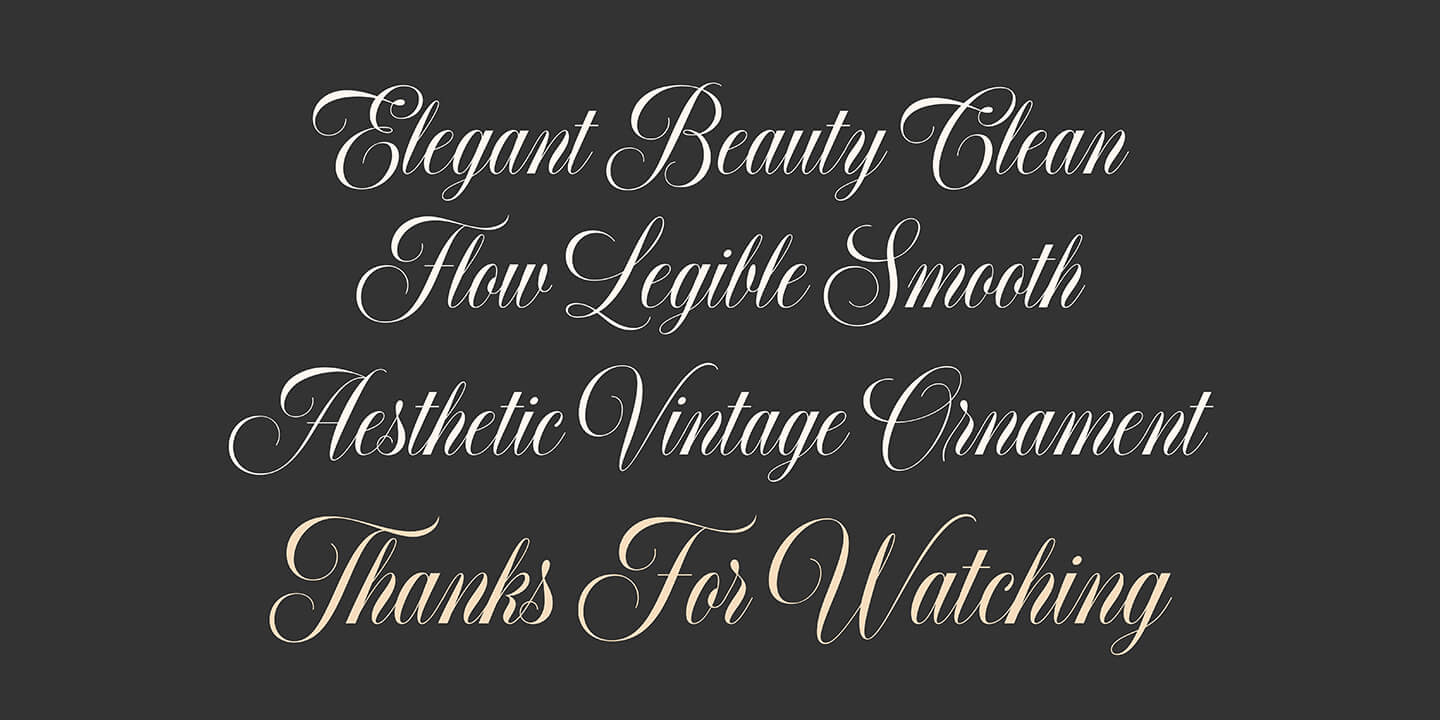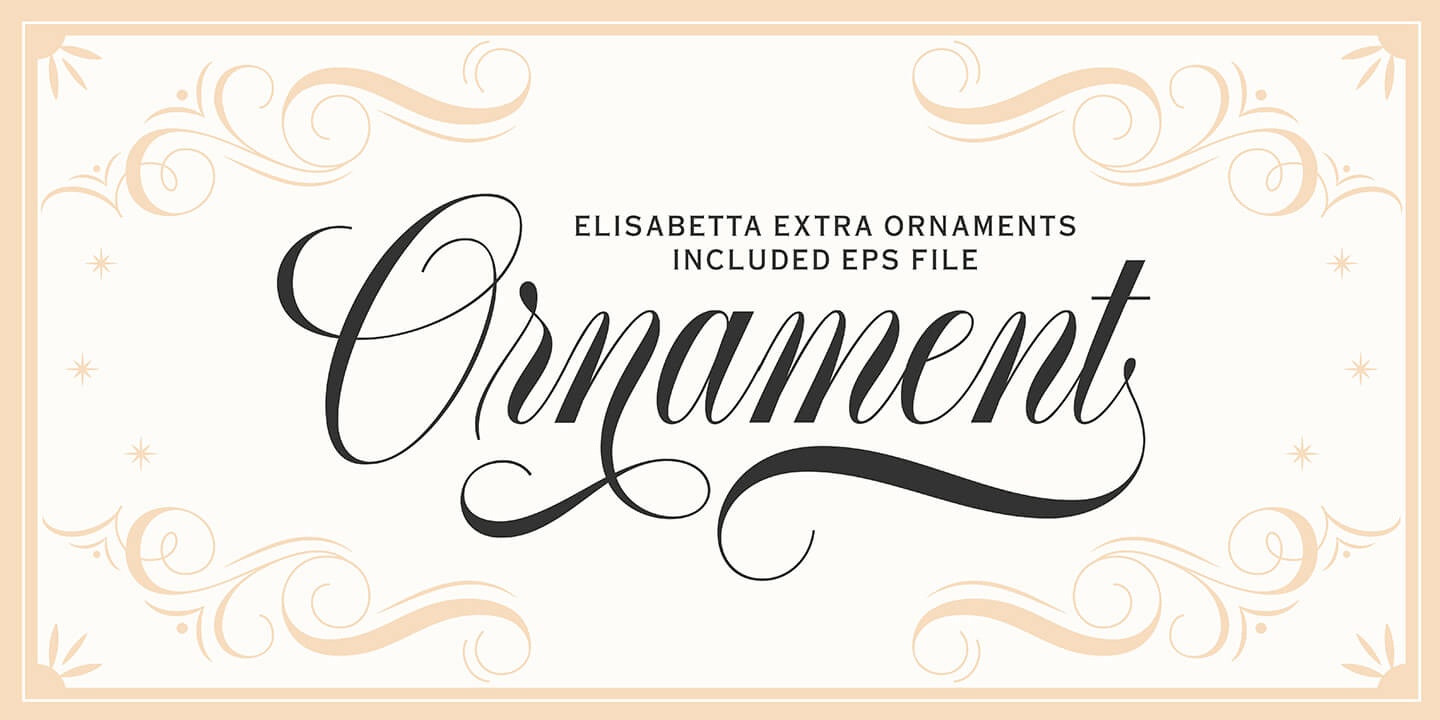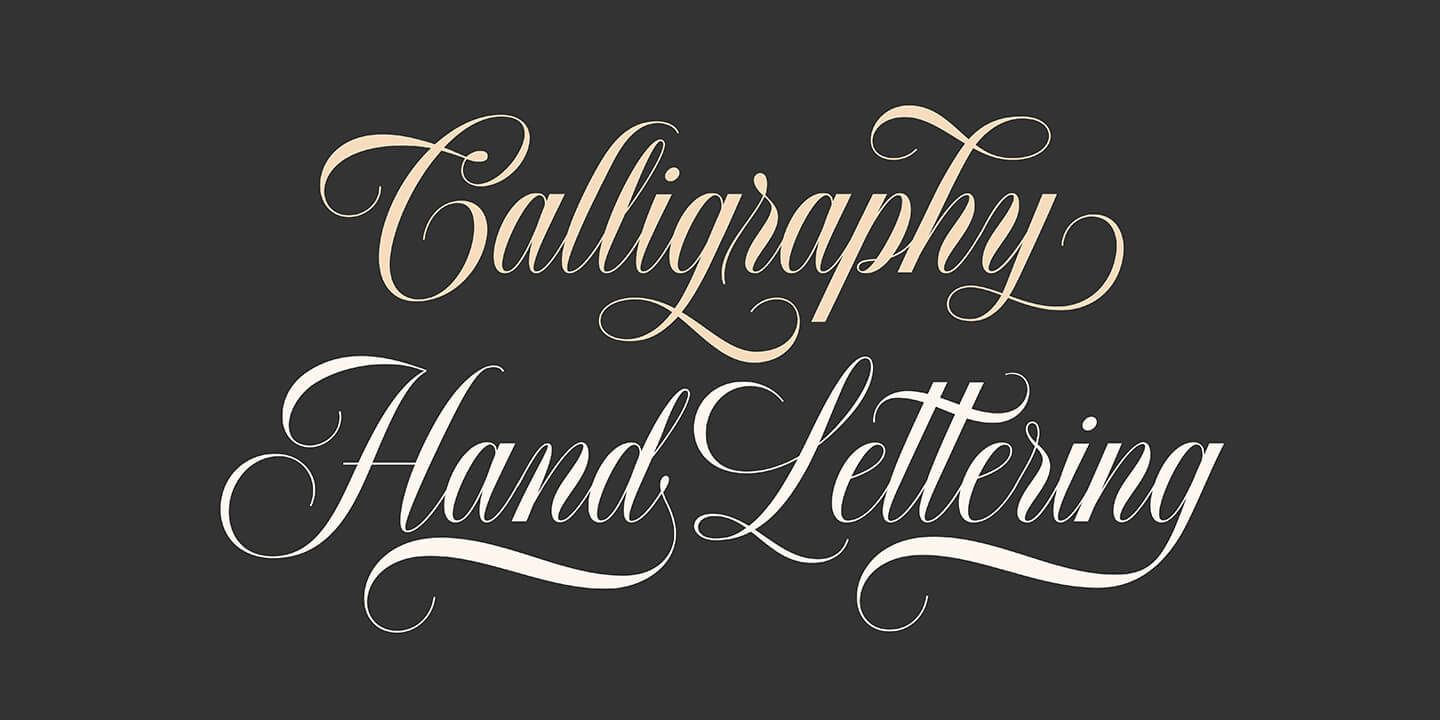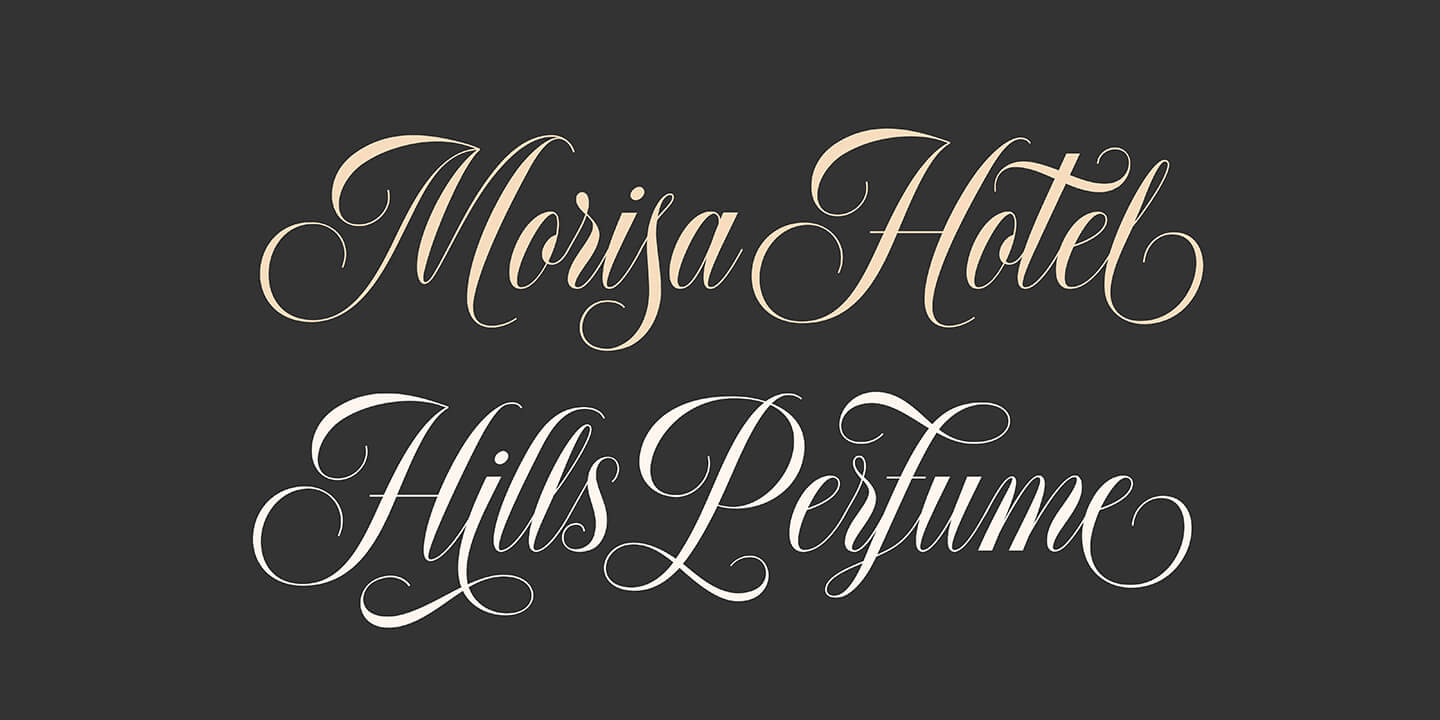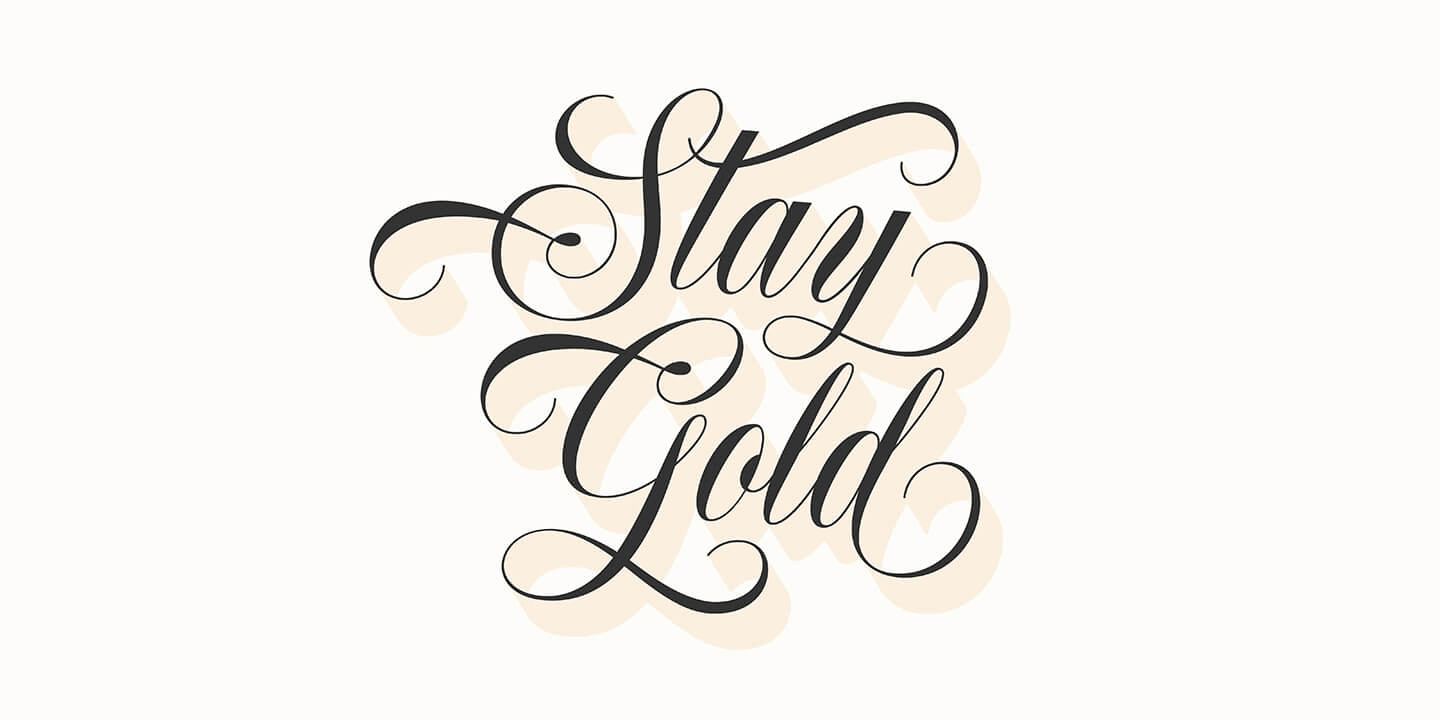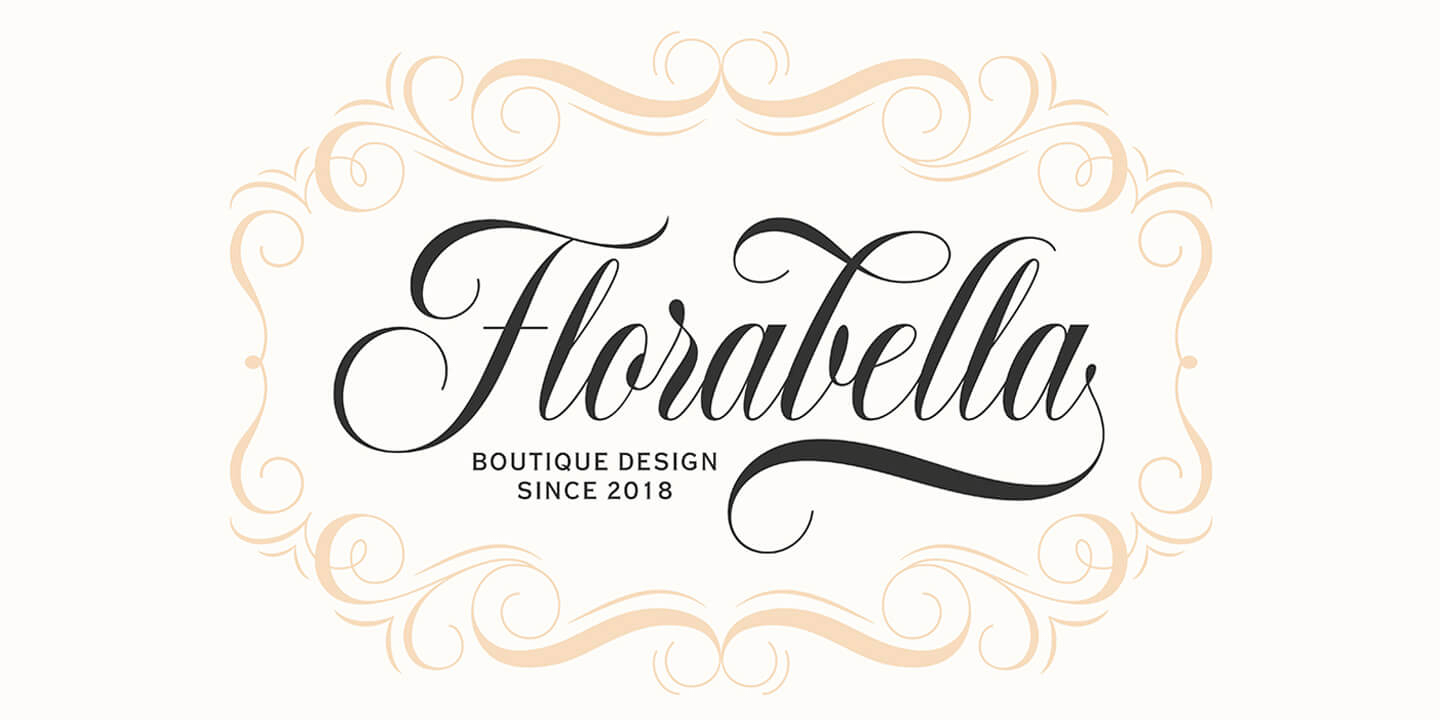
About Elisabetta
Elisabetta is a calligraphy script font that comes with lovely alternate characters. A mixture of copperplate calligraphy with hand lettering style. Designed to convey style elegance. Elisabetta is attractive like a smooth, clean, feminine, sensual, glamorous,…